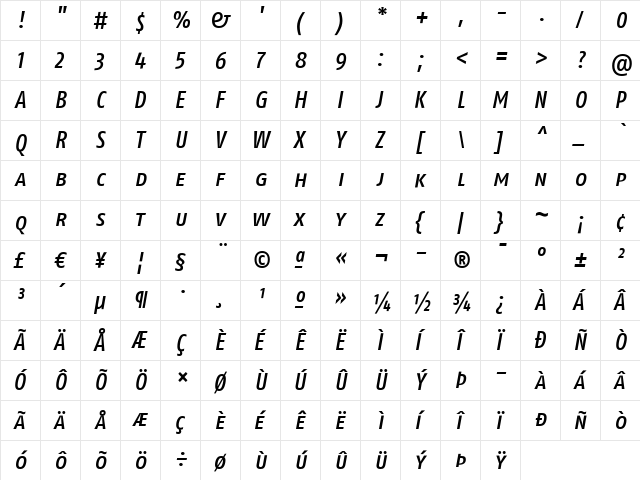
FagoCoLf Medium Font Preview
FagoCoLf Medium
FagoCoLf Medium Font Details
Design Context for FagoCoLf Typeface
FagoCoLf offers clean, dependable letterforms without strong stylistic allegiance, making it a practical choice for designers who need flexibility.